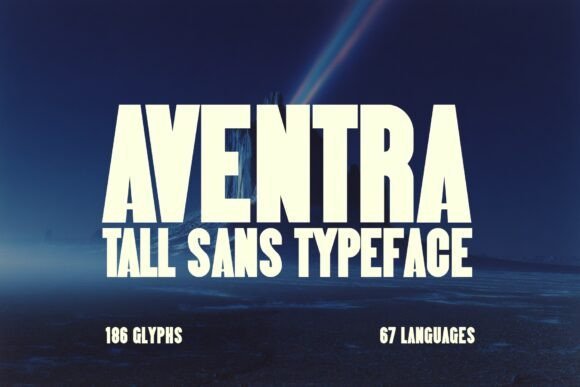
A Modern Masterpiece: Unlocking the Potential of Aventra Font
Have you ever found yourself staring at a blank canvas, struggling to find the perfect font to bring your design to life? We’ve all been there – the blank page staring back, waiting for that elusive spark of creativity. For designers seeking to elevate their branding, packaging, and editorial projects, the search for the perfect font can be a daunting task.
Enter Aventra Font, a sleek and sophisticated sans serif typeface that embodies modern elegance. With its clean lines and refined geometry, Aventra is designed to exude confidence and clarity, making it an ideal choice for luxury product labels, stylish logos, and high-end packaging. Its versatility and effortless sophistication make it a valuable asset for designers seeking to create impactful and memorable designs.
Aventra Font Key Features
- Font Family: Aventra Font is a modern sans-serif typeface with a clean and minimalist design.
- Character Set: Supports a wide range of languages, including Latin, Cyrillic, and Greek alphabets, making it suitable for global branding and design projects.
- Font Sizes: Available in 7 weights, ranging from Thin (100) to Extra Bold (800), providing flexibility for various design applications.
- Unique Characteristics: Aventra Font features a distinctive geometric shape with subtle rounded edges, creating a friendly and approachable feel.
Aventra Font Review
I recently had the chance to work with the Aventra Font, and I have to say, it’s a solid choice for designers looking for a clean and modern sans-serif font.
- Highly legible: Aventra Font is designed with readability in mind, making it perfect for body text, headlines, and even signage.
- Neutral tone: The font’s neutral tone makes it suitable for a wide range of design applications, from corporate to creative projects.
- Good contrast: The font’s well-balanced contrast between thick and thin strokes creates a visually appealing and engaging design.
- Lack of expressiveness: Aventra Font can come across as a bit bland and lacking in personality, especially when used for more creative or emotional projects.
- Not ideal for small text sizes: Due to its clean design, Aventra Font can become difficult to read when used in small text sizes.
Overall, Aventra Font is a reliable choice for designers who value simplicity and legibility. While it may not be the most exciting font, it gets the job done and is suitable for a wide range of design applications.
Tips for Getting the Most Out of Aventra Font
For optimal results, use Aventra Font in conjunction with high-quality images and a clean design aesthetic. Experiment with different font sizes and styles to create visual interest. Avoid overusing the font, as it can become overwhelming.
Aventra Font is ideal for use in corporate branding, marketing materials, and digital products. Its modern and sleek design makes it perfect for tech startups, finance companies, and other industries that value professionalism and sophistication.
Alternatives to Aventra Font for Designers
Lato Font is a clean and modern sans-serif font that is highly legible. It is suitable for various design projects, including corporate materials, websites, and mobile apps. Lato Font is similar to Aventra Font in its sleek and minimalist design, but it has a more rounded and friendly feel.
When to use: Lato Font is ideal for designs that require a clean and approachable look. It is perfect for corporate materials, websites, and mobile apps that need a modern and professional feel.
Montserrat Font is a geometric sans-serif font that is highly versatile. It is suitable for a wide range of design projects, including logos, typography, and wayfinding systems. Montserrat Font has a more angular and edgy feel compared to Aventra Font, making it ideal for designs that require a bold and modern look.